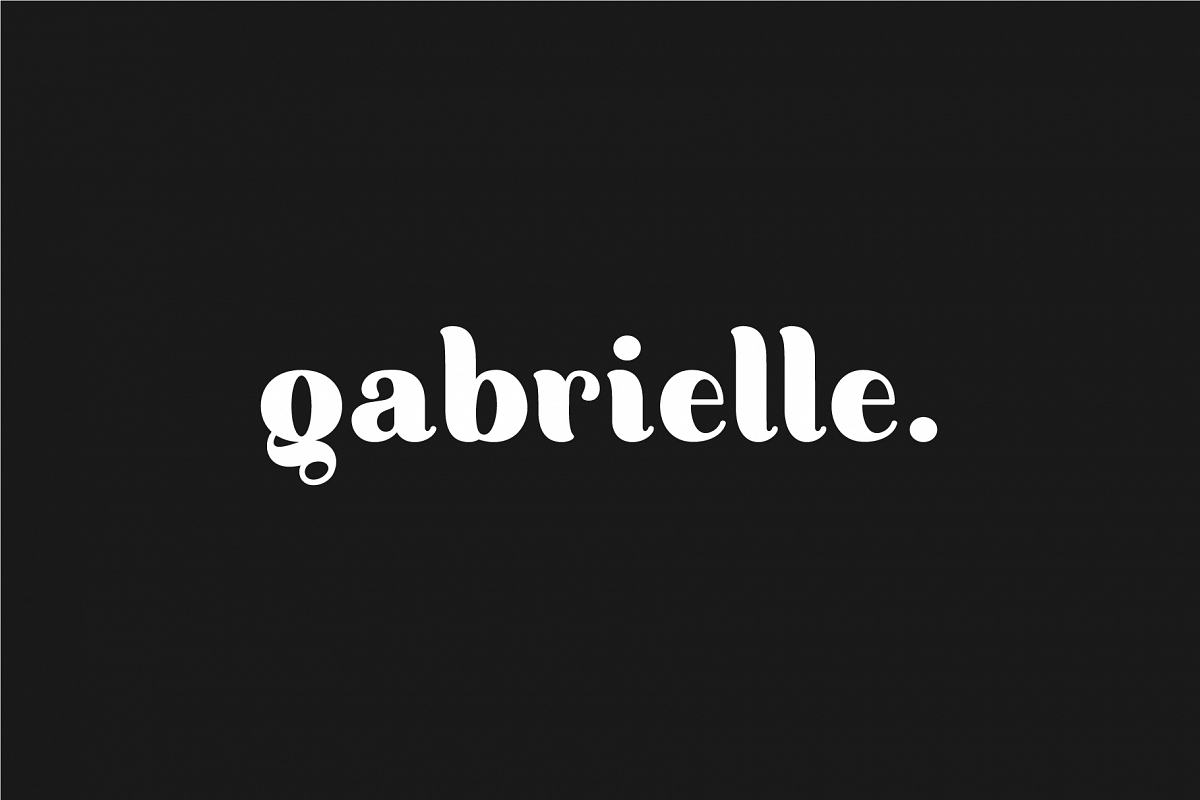
Gabrielle. Sans serif family
Gabrielle. Sans serif family.
Gabrielle - playful and bold family of fonts. Wide lines in the company with perfect curves attract attention and interest. Exotic font look will give your projects an elegant and exquisite appearance. Use the font for the design of the printing house, greeting cards, women's magazines, fashionable logos, etc.
• 4 fonts in family
• UPPERCASE and lowercase letters
• Numbers & basic Punctuation
• Sans-Serif Typeface
• Regular and Italic font style
• Light and Light italic font style
• Playful contrast font